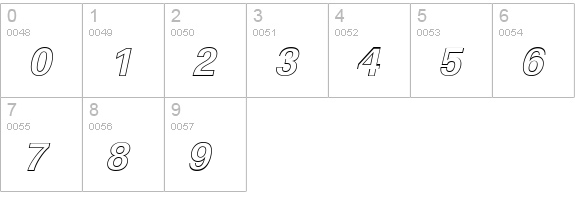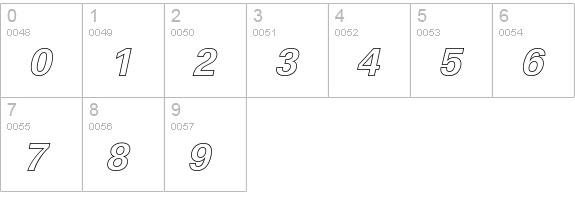
LinearOu-BoldItalic is a modern and sleek font with a touch of elegance. Its bold and italic styles give it a unique and dynamic look, making it perfect for a variety of design projects. Whether you're creating a logo, poster, or website, LinearOu-BoldItalic will make your text stand out. The free download of LinearOu-BoldItalic font is available at FontsMarket.com, where you can easily access this versatile typeface for your creative endeavors. With its clean lines and sophisticated appearance, LinearOu-BoldItalic is sure to elevate the visual impact of any project. Don't miss out on the opportunity to enhance your designs with this stylish and versatile font.